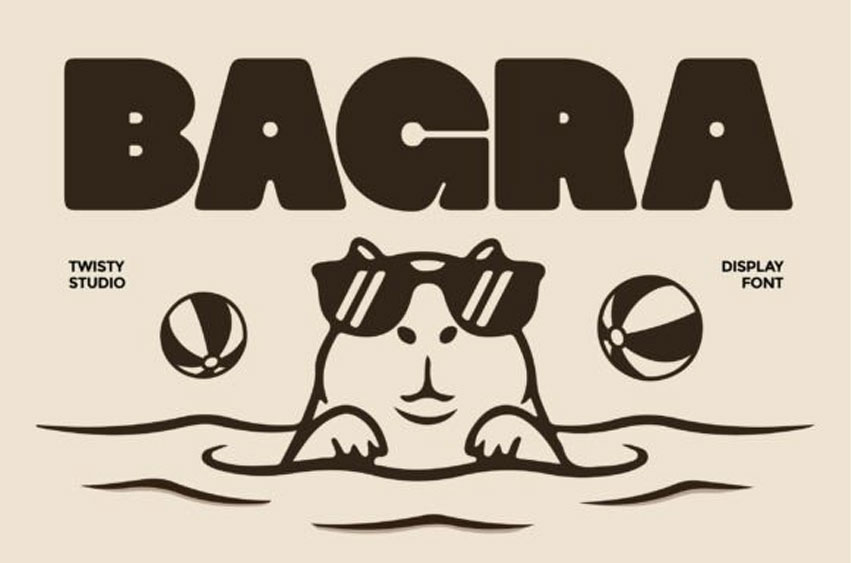
Bagra Font is a bold display font designed to create strong visual impact and clear typographic presence.
With its solid letterforms, clean structure, and confident style, Bagra delivers a modern and attention-grabbing look that works perfectly for display purposes.